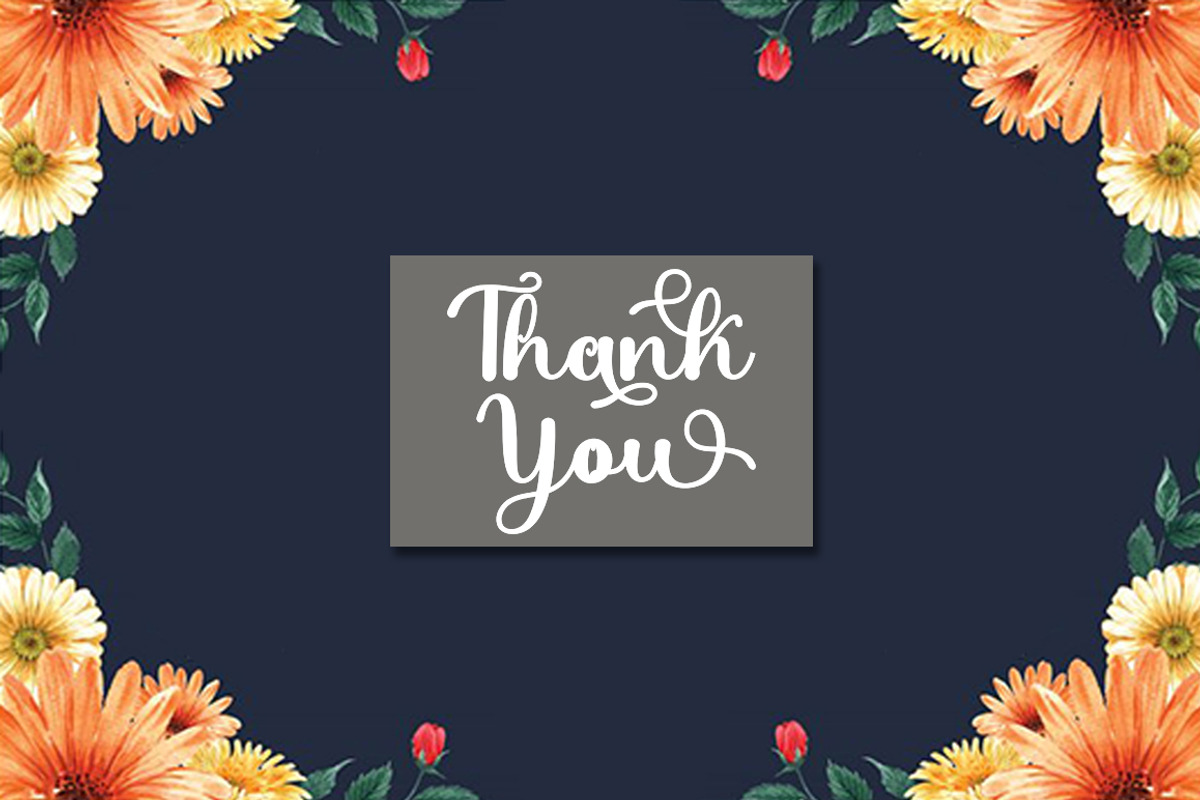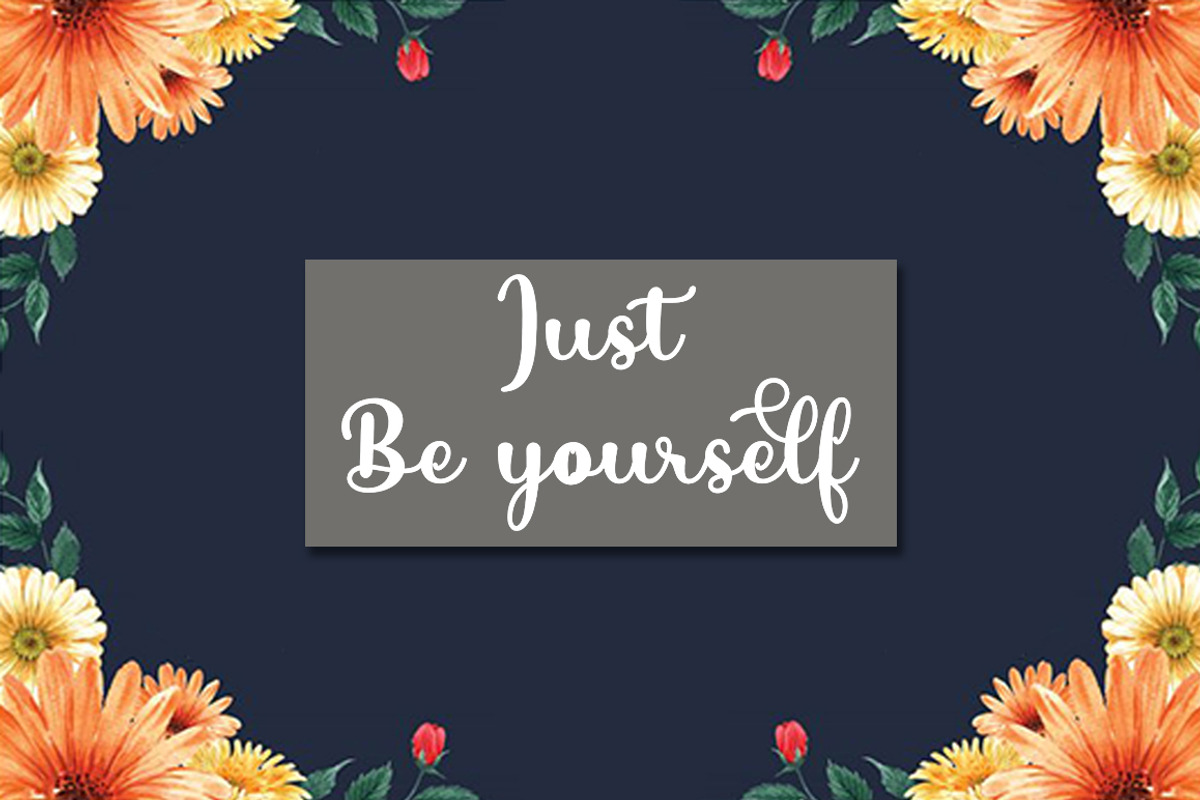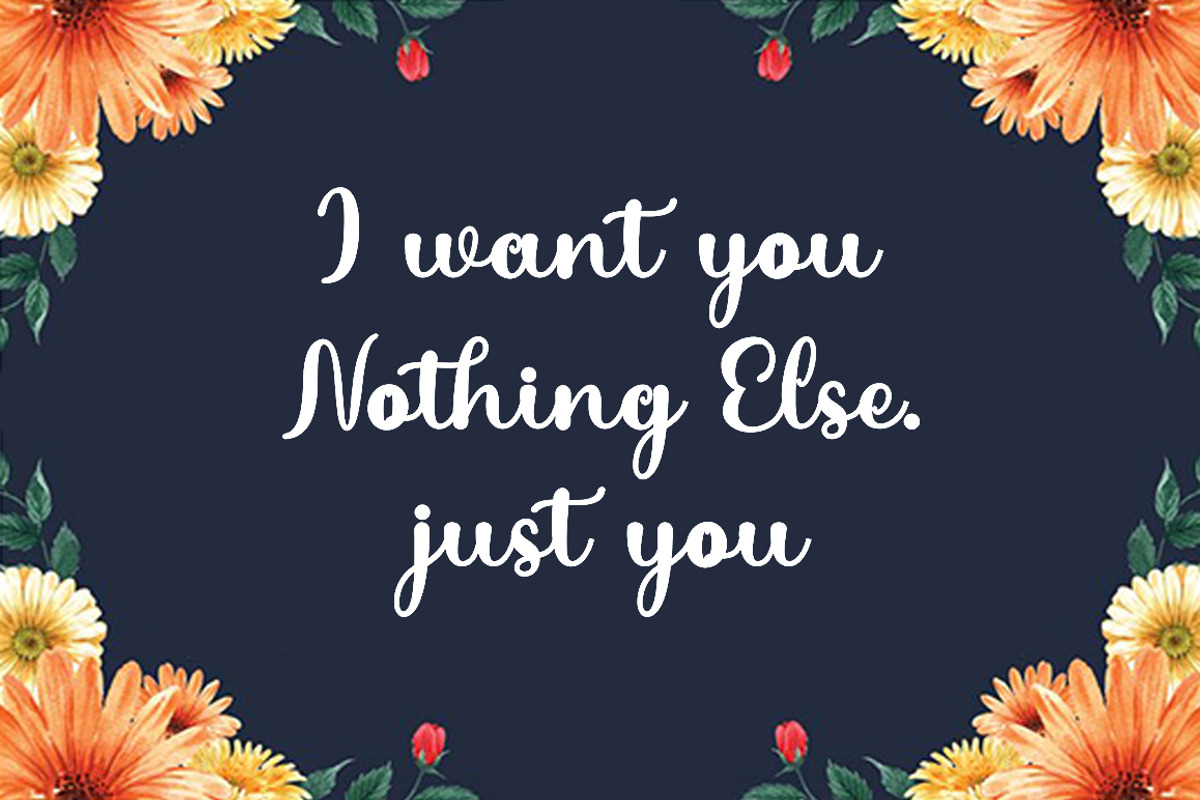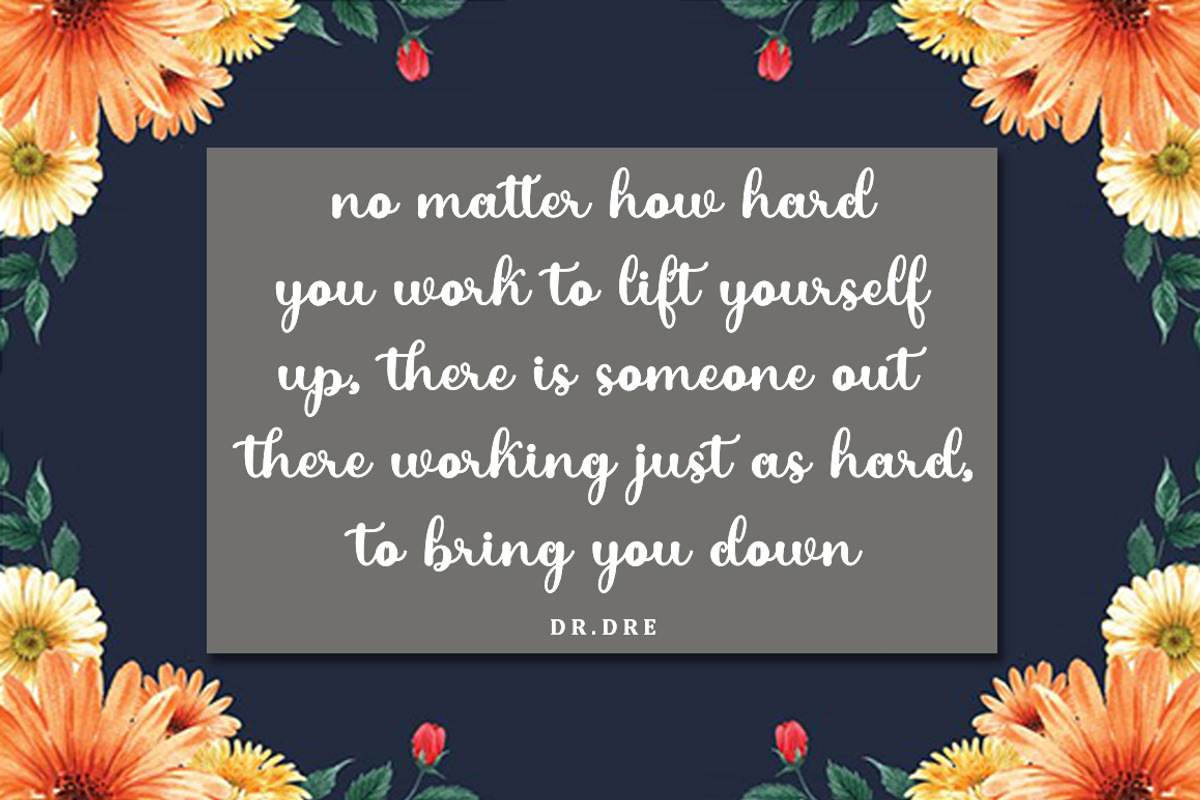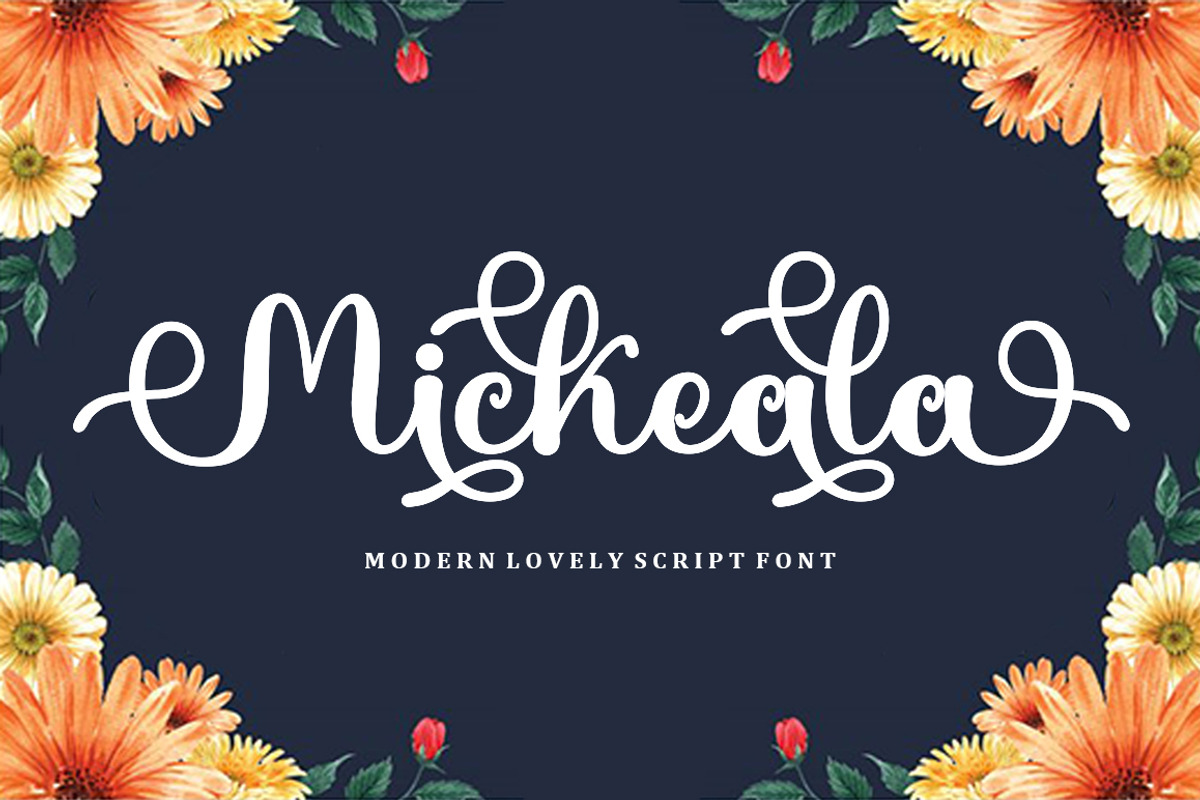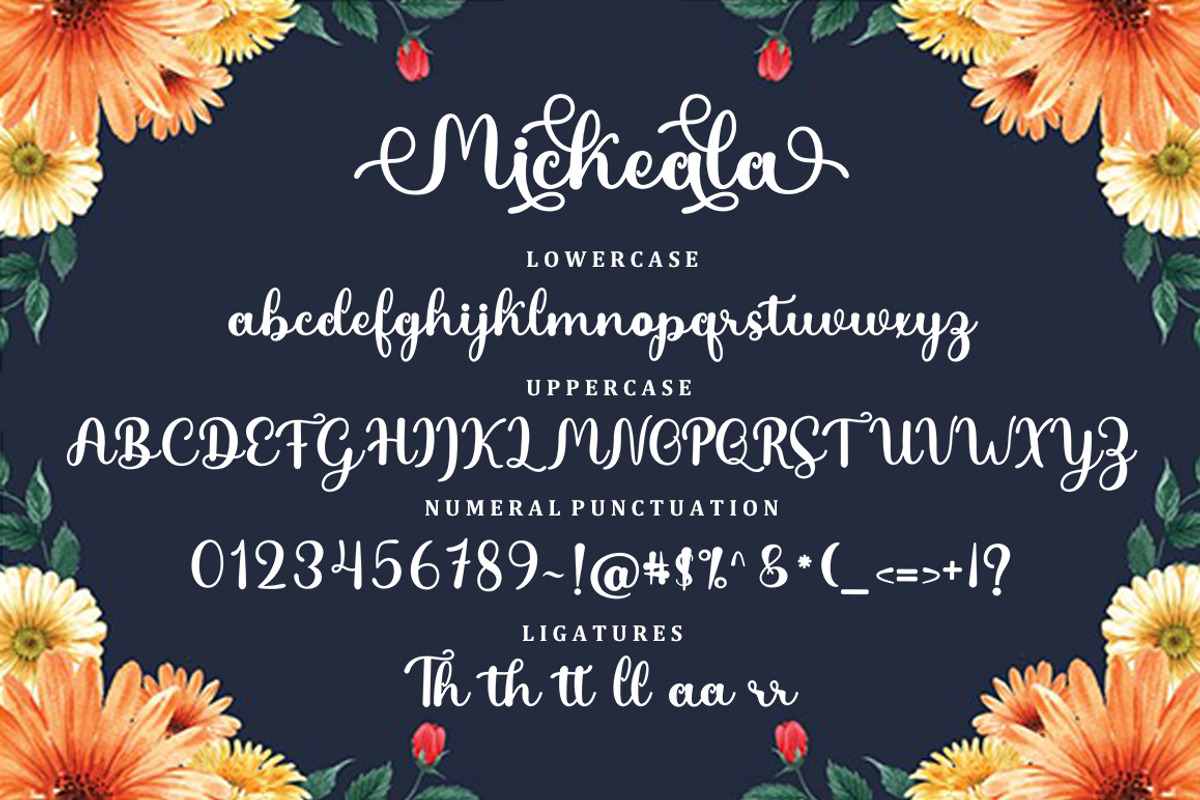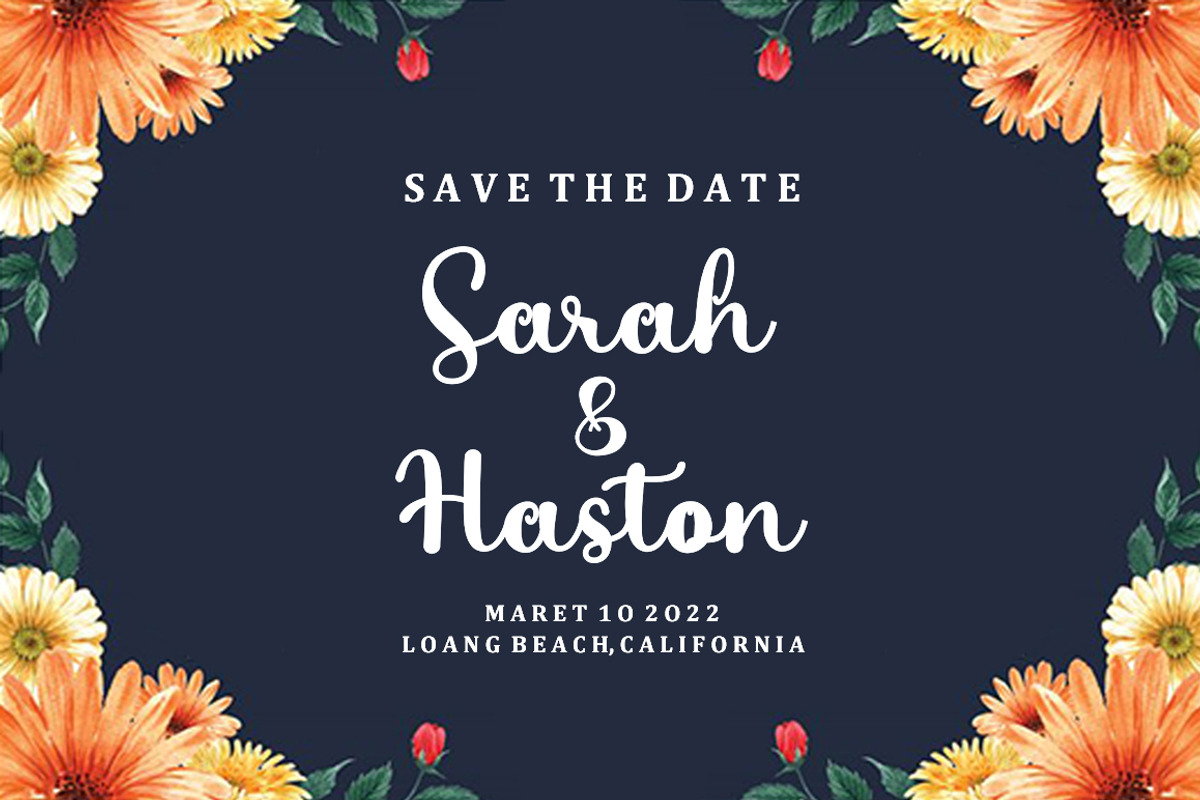
Mickeala Script | Family Font
Mickeala is a script type family of four fonts. It is inspired by Elegant Fonts and has a soft and friendly look Mickeala can be used for branding, packaging and anywhere else you need a script font that is readable and smooth. Mickeala has many ties, strokes and alternate characters that will make your designs unique and beautiful.